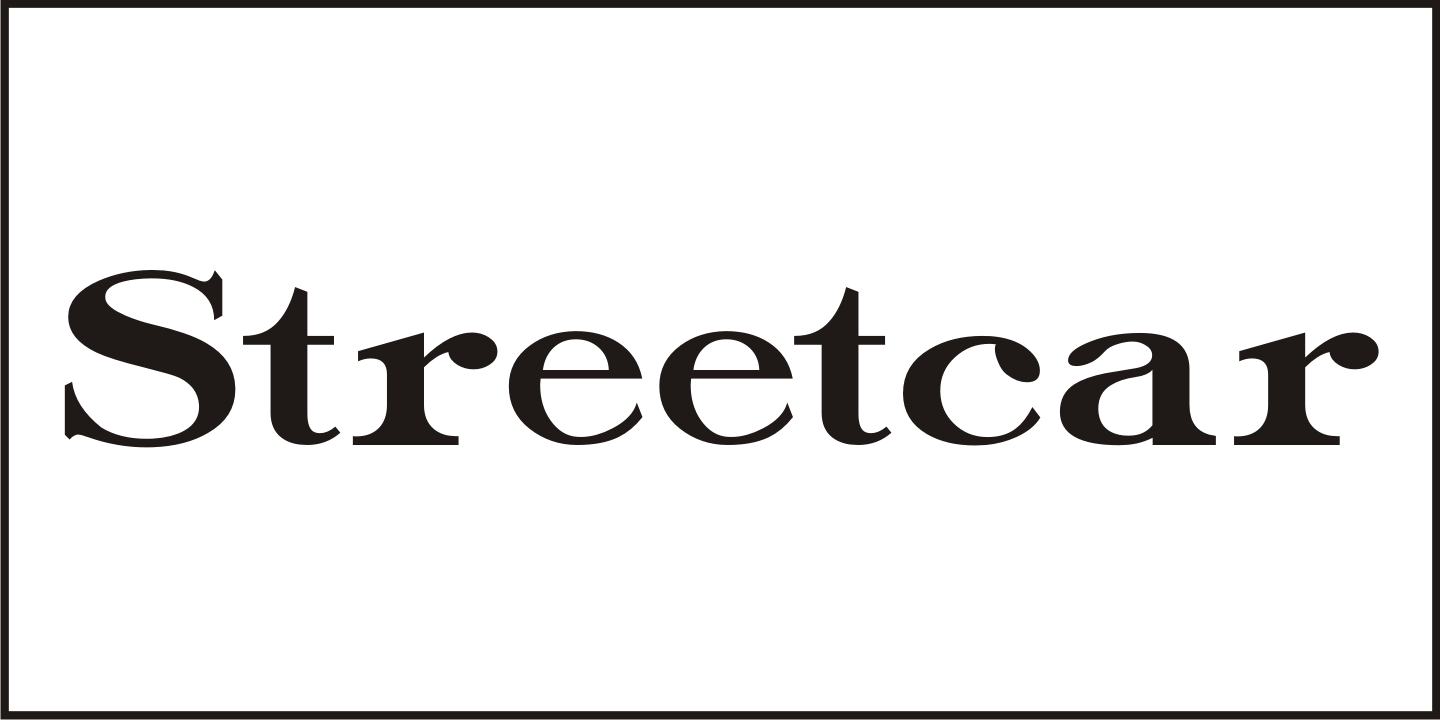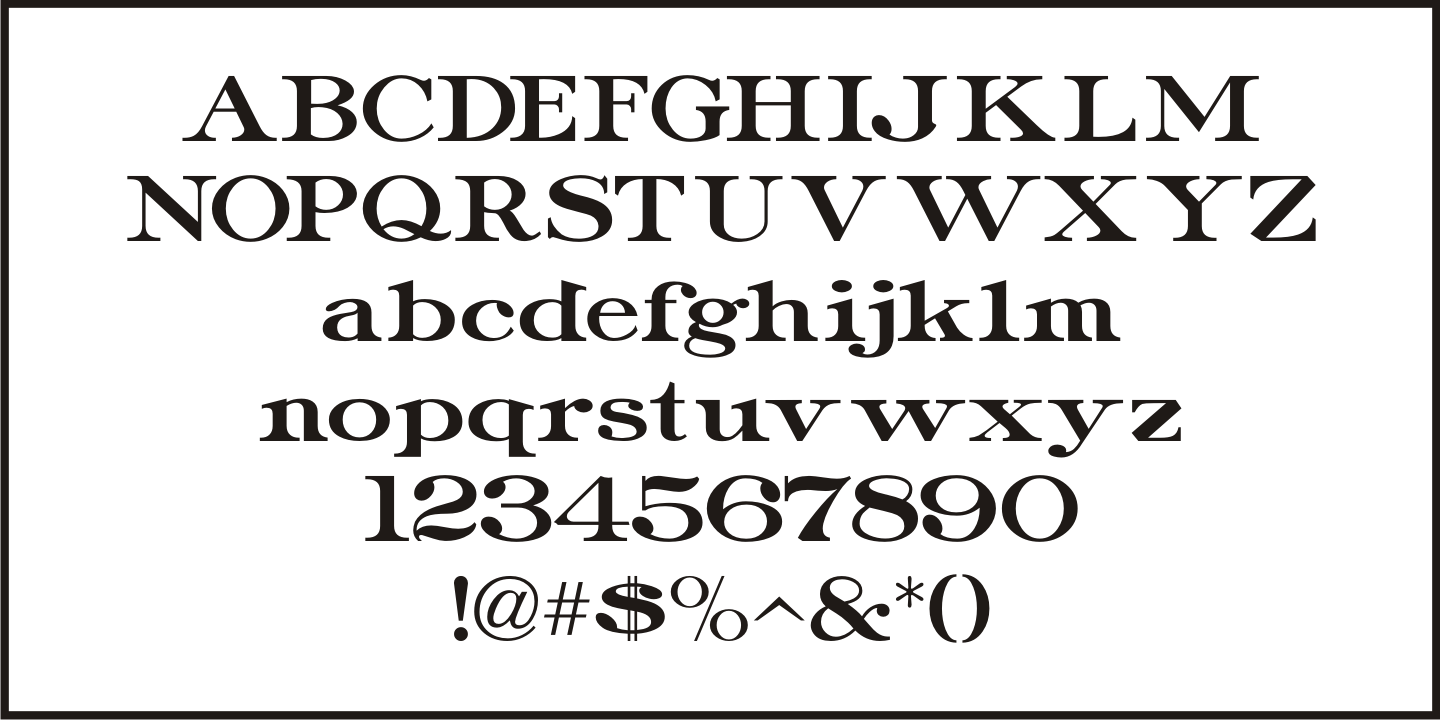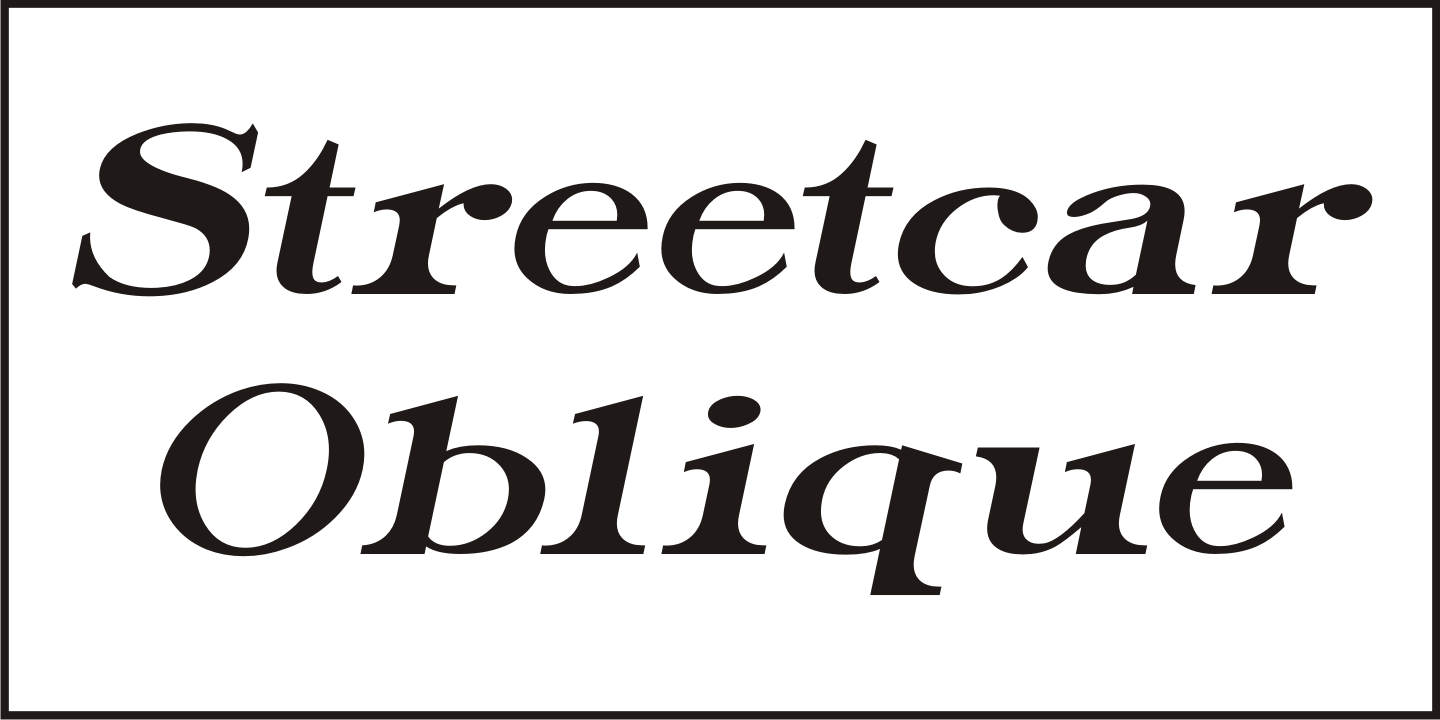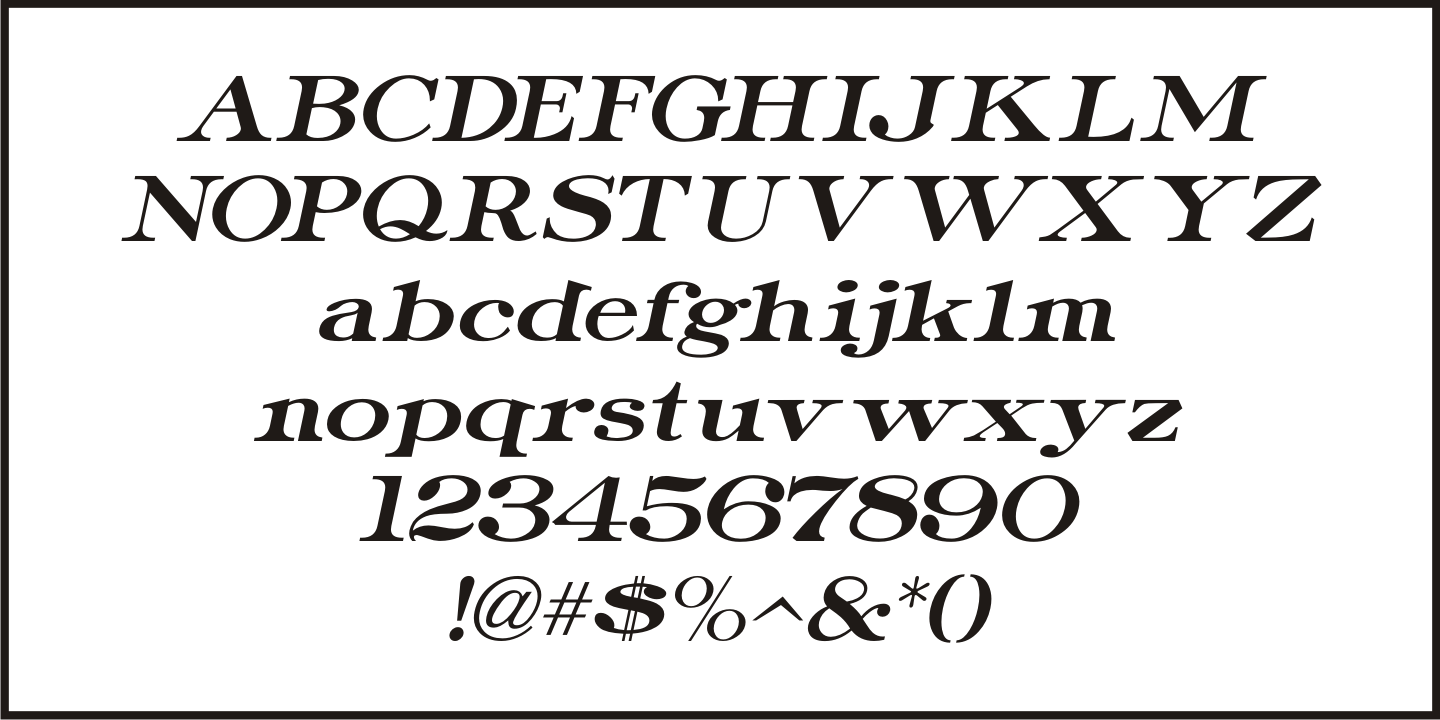
Streetcar
An ebay purchase of a vintage Speedball lettering pen set yielded an extra bonus… numerous alphabets on paper rendered in both pen and ink and via pencil sketches.
One such design in rough pencil layout is a classic serif typeface often found on many passenger and freight trains, trolley cars and busses.
This 'Railroad Roman' was scanned from the original sketches and then re-drawn digitally, all along retaining the charm and attractiveness often found in hand lettering.
The end result is Streetcar JNL, which is available in both regular and oblique versions.